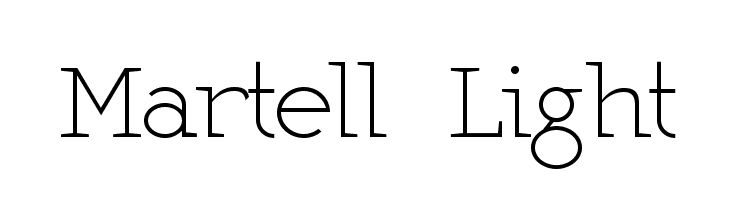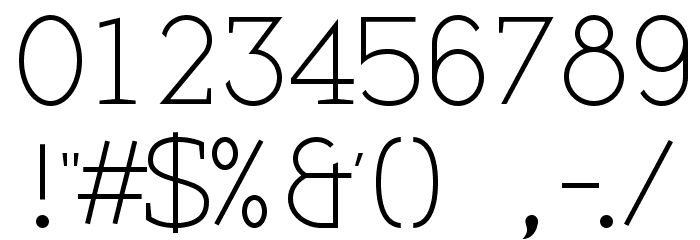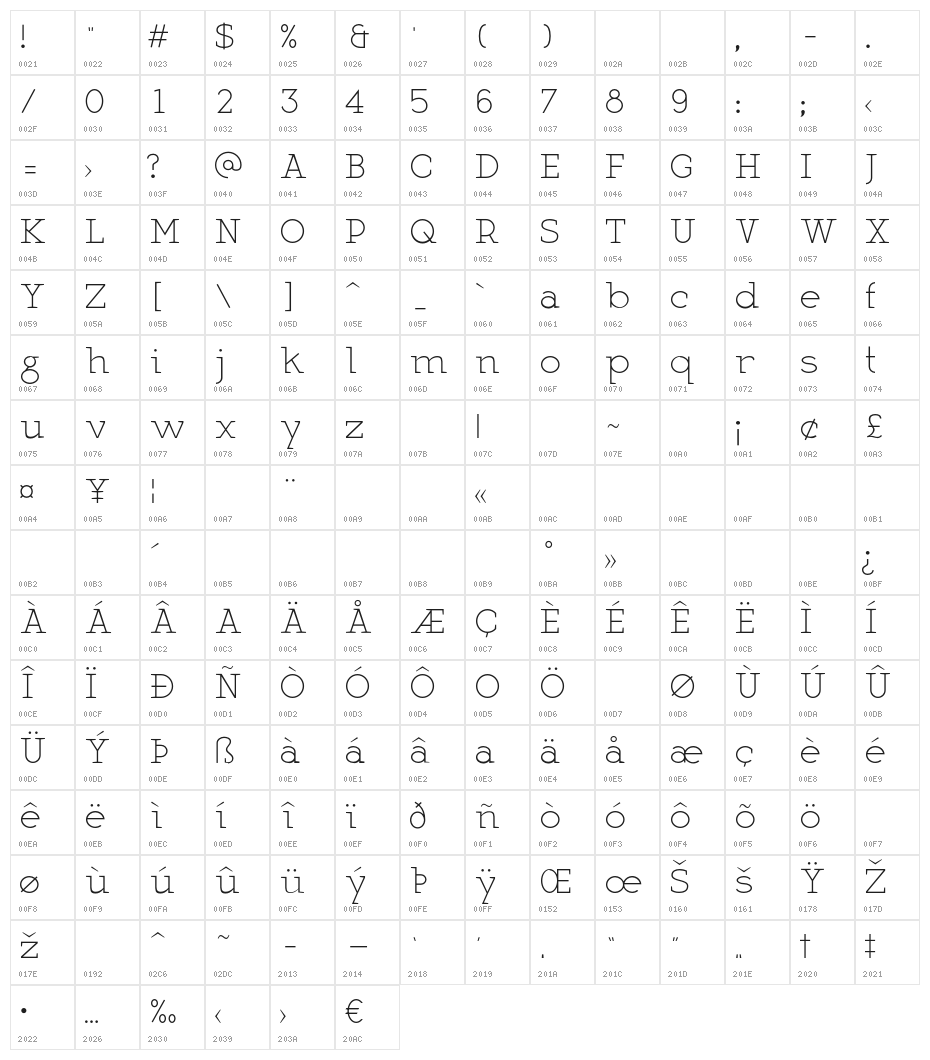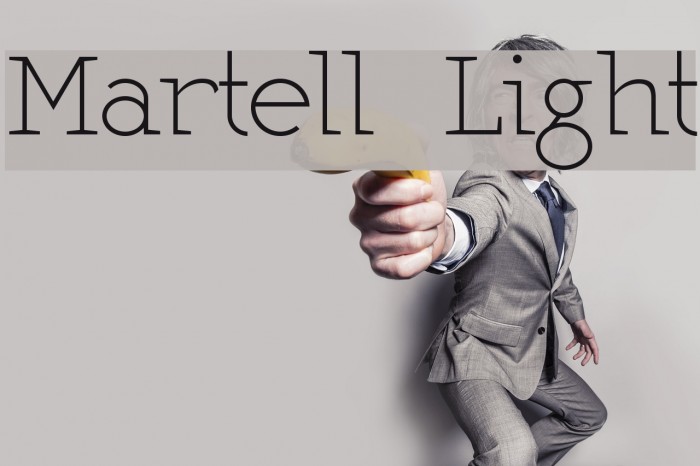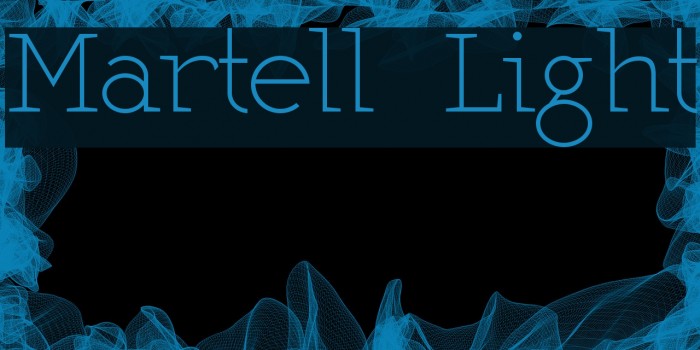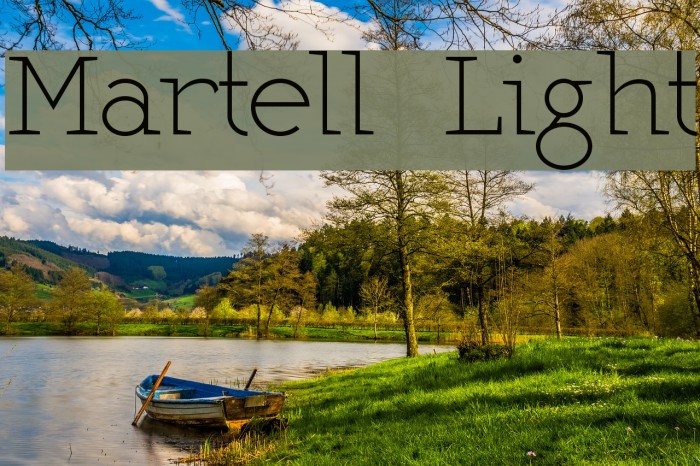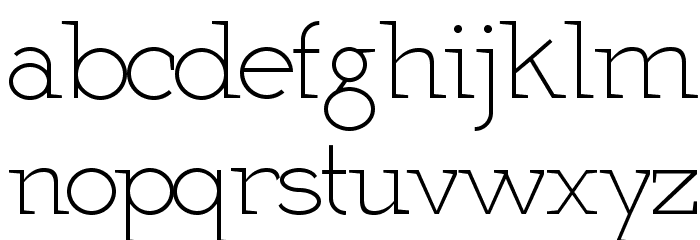
Martell Light Font
Martell Light Description
This font features a clean and elegant design with a modern twist. The characters are crafted with a thin, consistent stroke that gives it a light and airy appearance. The uppercase letters are slightly taller than average, providing a sense of sophistication and formality. The lowercase letters maintain a harmonious balance with rounded edges and smooth curves, enhancing readability. The numerals are proportionate and align well with the overall style, making them suitable for various applications. Special characters are well-integrated, maintaining the font's cohesive look. This font is versatile, suitable for both digital and print media, and can be used effectively in a variety of design projects.